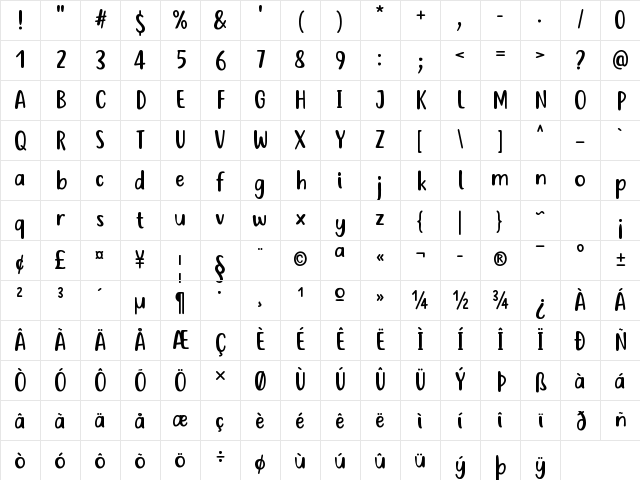
Complete Just tell me what Regular glyph index. Displaying only characters natively supported by Just tell me what Regular font.
Just tell me what is a composed and adaptable typeface that performs quietly and consistently across a wide range of design contexts.
Pro Tip: Use Just tell me what in both headline and body roles to test its range before committing to a single application.